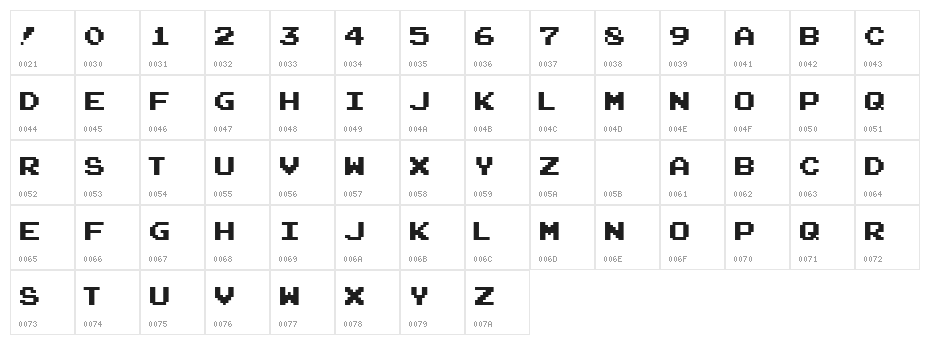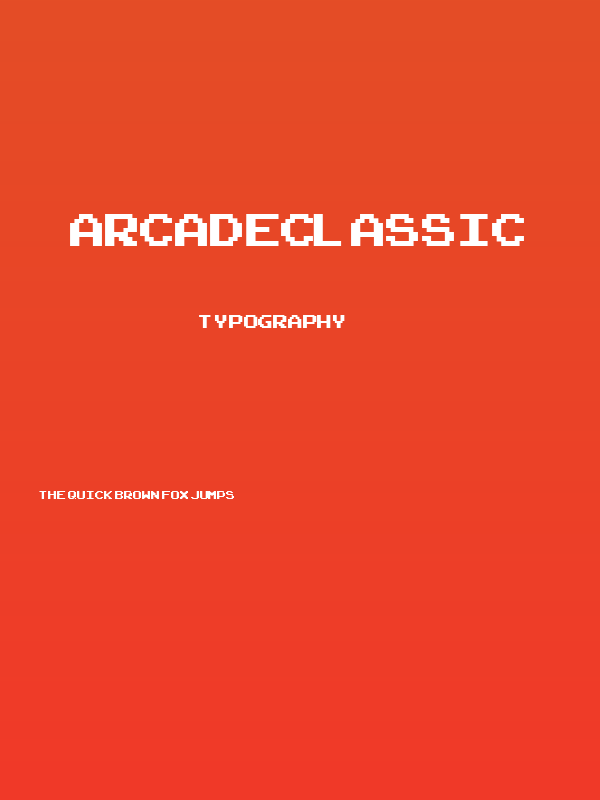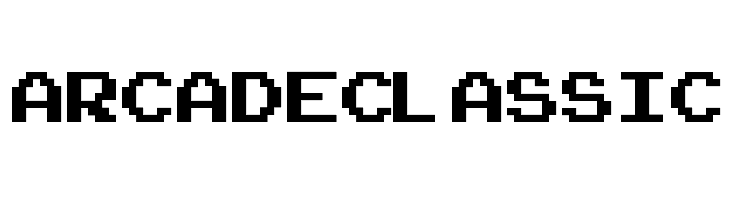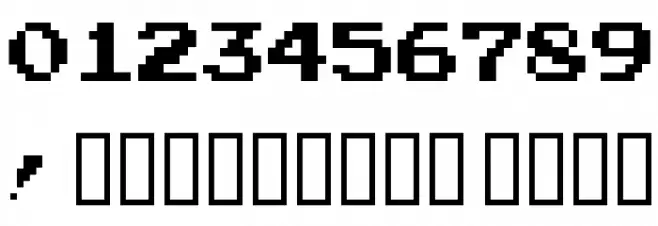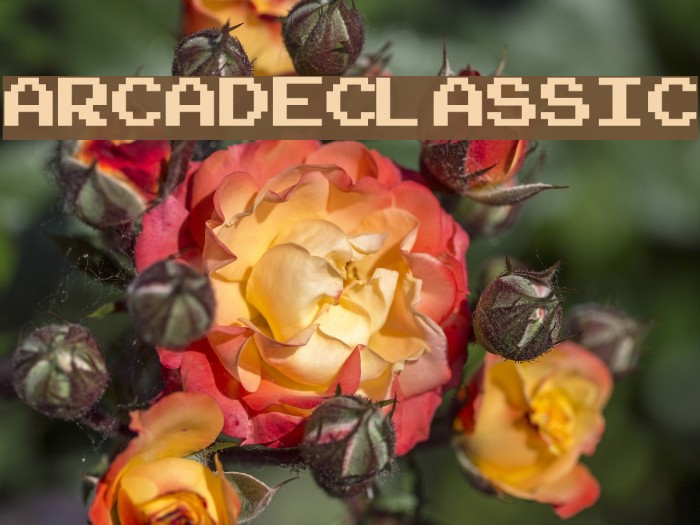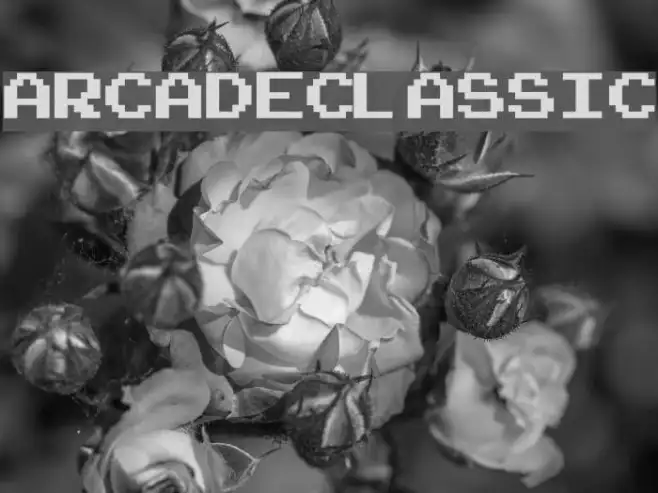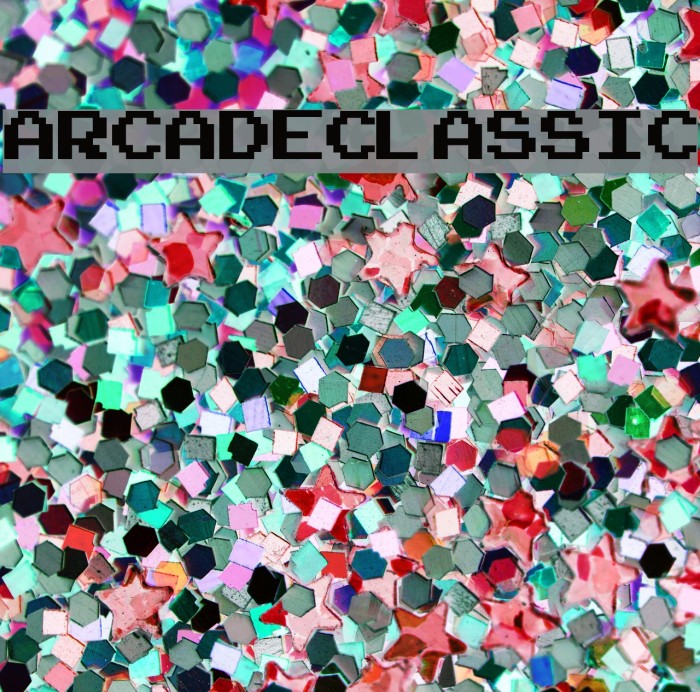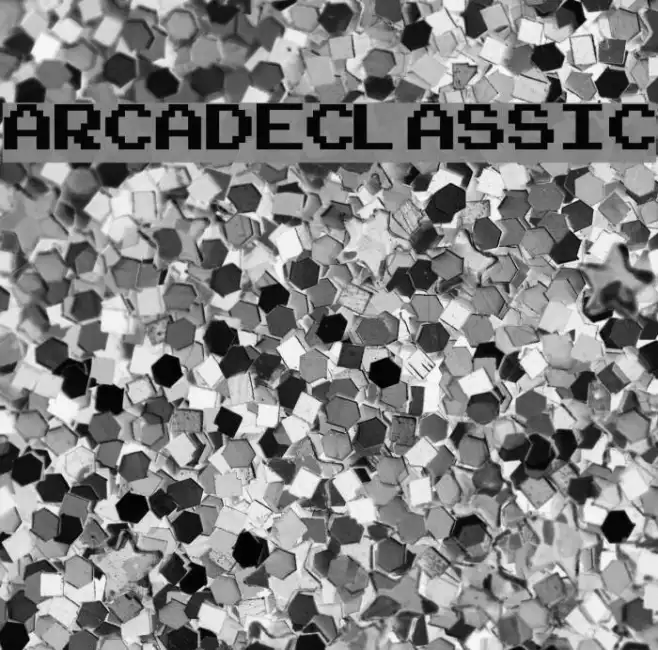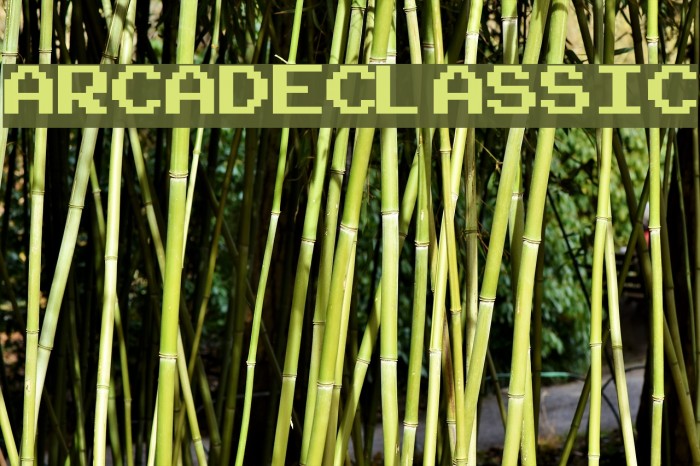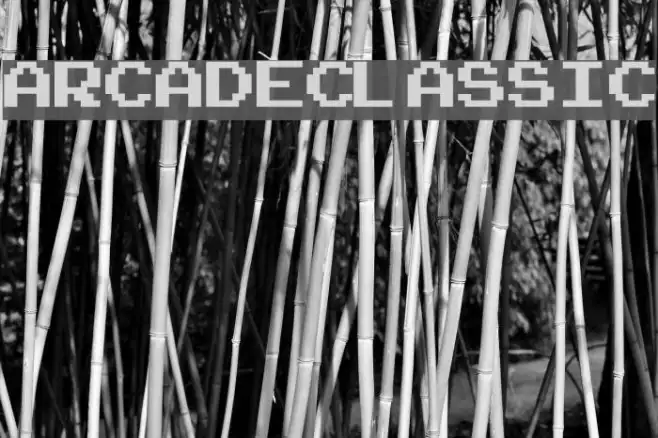
ArcadeClassic Font
ArcadeClassic Description
This font embodies a classic pixelated style reminiscent of early video game graphics. Each character is constructed with a blocky, grid-like appearance, capturing the nostalgic essence of retro arcade games. The uppercase and lowercase letters maintain a consistent height, emphasizing uniformity and simplicity. Numbers and special characters follow the same pixelated design, ensuring a cohesive look across all glyphs. The font's geometric structure and sharp edges make it ideal for digital displays and projects that aim to evoke a sense of nostalgia for the 8-bit era.
| Overall Style | Vintage |
| Use Case | Headlines, Logos, Digital displays |
| Proposed Projects | Ideal for video game design, retro-themed posters, digital art, and any project seeking a nostalgic, 8-bit aesthetic. |